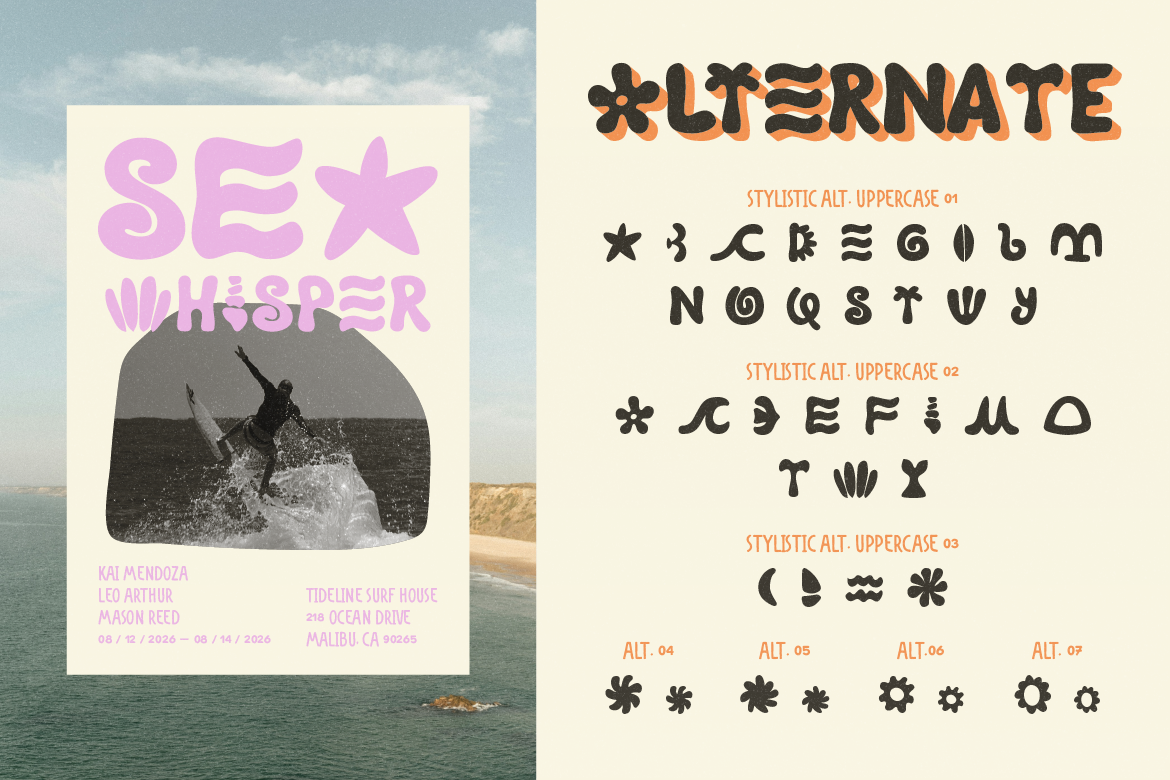
Ever stared at a design and thought, “why does this look so… good?” Nine times out of ten, it’s not just the colors or layout — it’s the font pairing. Picking the right combination of typefaces can make your design feel polished and professional, while the wrong combo can make it look messy or amateur, even if everything else is perfect.
The good news? Font pairing isn’t some secret skill only designers are born with. It’s a learnable craft, and once you understand a few simple principles, you’ll start spotting good (and bad) pairings everywhere. Let’s break it down step by step.
Why Font Pairing Matters
Typography sets the tone before a single word is even read. A bold, geometric sans-serif screams “modern startup,” while an elegant serif whispers “luxury brand.” When you pair fonts well, you create visual hierarchy, guide the reader’s eye, and make your content easier to digest.
On the flip side, mismatched fonts can clash, distract, or make your design feel unbalanced — even if each font looks great on its own.
Rule #1: Contrast Is Your Best Friend
The golden rule of font pairing is contrast. You want your fonts to be different enough that they don’t compete, but similar enough that they feel like they belong together.
Some classic ways to create contrast:
- Serif + Sans-serif: A timeless combo. Use a serif for headings (elegant, traditional) and a sans-serif for body text (clean, easy to read).
- Bold + Light weights: Pair a heavy display font for headlines with a lighter weight for paragraphs.
- Wide + Narrow letterforms: Mixing a chunky display font with a slim, minimal body font creates visual interest without chaos.
Avoid pairing two fonts that look almost the same — it tends to look like a mistake rather than an intentional design choice.
Rule #2: Stick to Two (Maybe Three) Fonts Max
It’s tempting to use every cool font you find, but more isn’t better. A good rule of thumb:
- One font for headings — something with personality and presence.
- One font for body text — something clean and highly readable.
- (Optional) One accent font — for small details like buttons, labels, or quotes.
Three fonts is usually the limit. Beyond that, your design starts to feel cluttered and inconsistent.
Rule #3: Match the Mood
Every font has a personality. Before pairing, ask yourself: what feeling am I trying to create?
- Playful & fun → rounded sans-serifs, hand-lettered scripts
- Elegant & luxurious → high-contrast serifs, refined script accents
- Modern & minimal → geometric sans-serifs with lots of whitespace
- Bold & energetic → display fonts with strong weight and character
Your fonts should tell the same story. A whimsical script paired with a stiff corporate sans-serif, for example, sends mixed signals to your audience.
Rule #4: Pay Attention to X-Height and Proportions
This one’s a bit more technical, but stick with us — it makes a huge difference. X-height refers to the height of lowercase letters (like “x”) relative to the font’s overall size.
When pairing fonts, try to choose typefaces with similar x-heights. If one font has a much larger x-height than the other, they’ll look mismatched in size even when set at the same point size, throwing off your visual balance.
A quick tip: type out the same sentence in both fonts at the same size and place them side by side. If one looks noticeably bigger or smaller, you may need to adjust the sizing manually.
Rule #5: Use Pairing Tools (Especially as a Beginner)
You don’t have to guess your way through this. There are tons of resources that suggest tried-and-tested font combinations:
- Font marketplaces like ArtisanFont often include style guides or recommended pairings for each typeface — a huge time-saver.
- Pairing tools and generators let you preview combinations live before committing.
- Look at design inspiration sites (Pinterest, Behance, Dribbble) and study what fonts are being used in designs you admire.
Pro tip: when you find a font you love, check if the foundry or designer has listed “recommended pairings” — this is basically a cheat sheet made by people who know the font inside and out.
ArtisanFont Pairing Combos to Try
Want some real-world inspiration? Here are a few pairing ideas using fonts from the ArtisanFont collection — perfect if you’re already browsing for your next project:
- Foramte (headings) + Cantilos (body) — Foramte’s elegant serif details give your headlines a touch of luxury, while Cantilos’ clean, minimalist style keeps body text easy to read. Great for high-end branding, editorial layouts, or boutique websites.
- Flanky (headings) + Cantilos (body) — Flanky is a bold, chunky sans-serif with playful character (perfect for food or lifestyle branding), paired with Cantilos for clean, no-fuss body text. The contrast in weight creates strong visual hierarchy without feeling cluttered.
- Truewild (headings) + Cantilos (body) — Truewild’s western slab-serif style brings a rustic, vintage personality, balanced nicely by Cantilos’ modern simplicity. Ideal for cafes, rustic brands, or anything with a “handmade” feel.